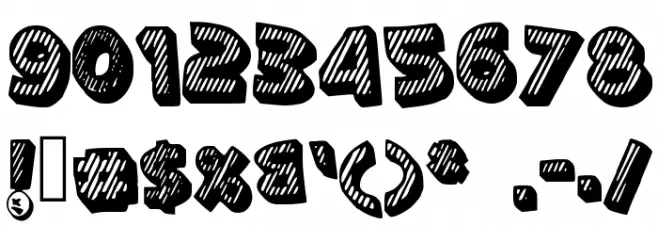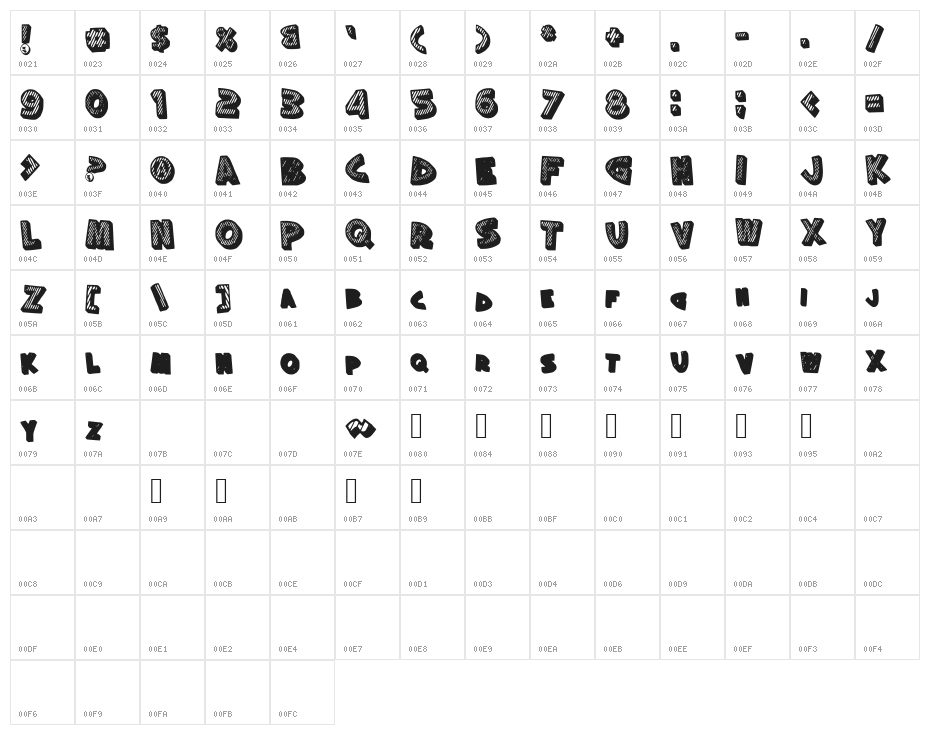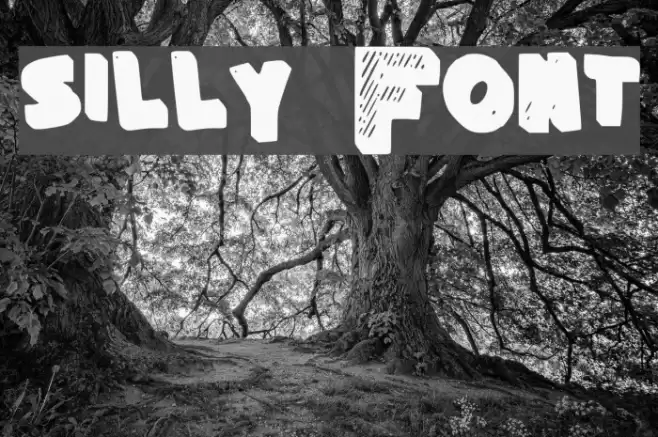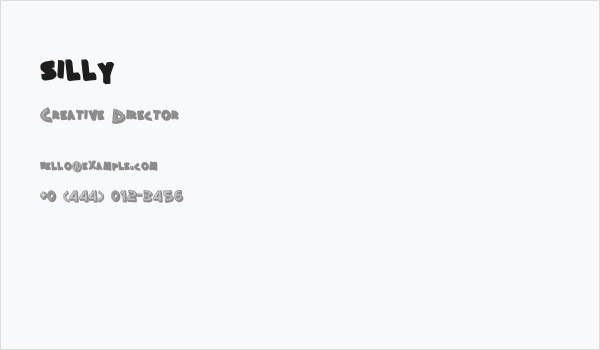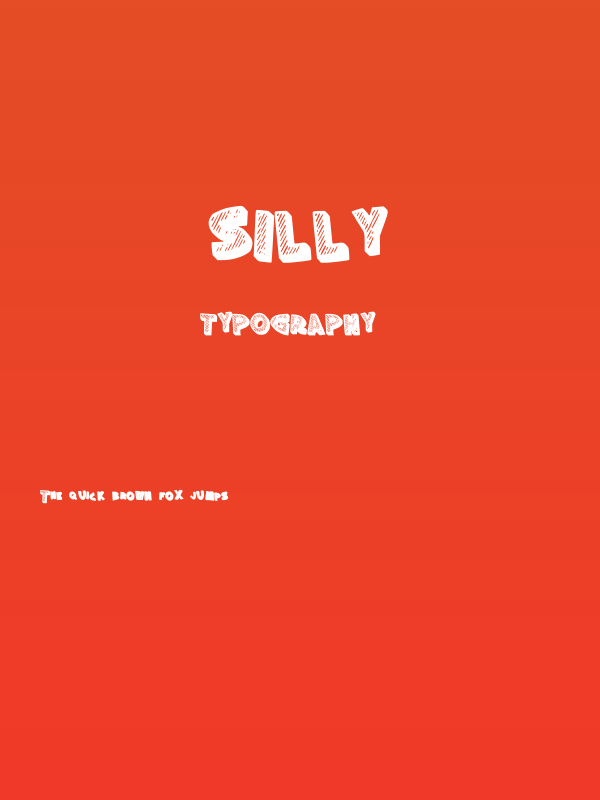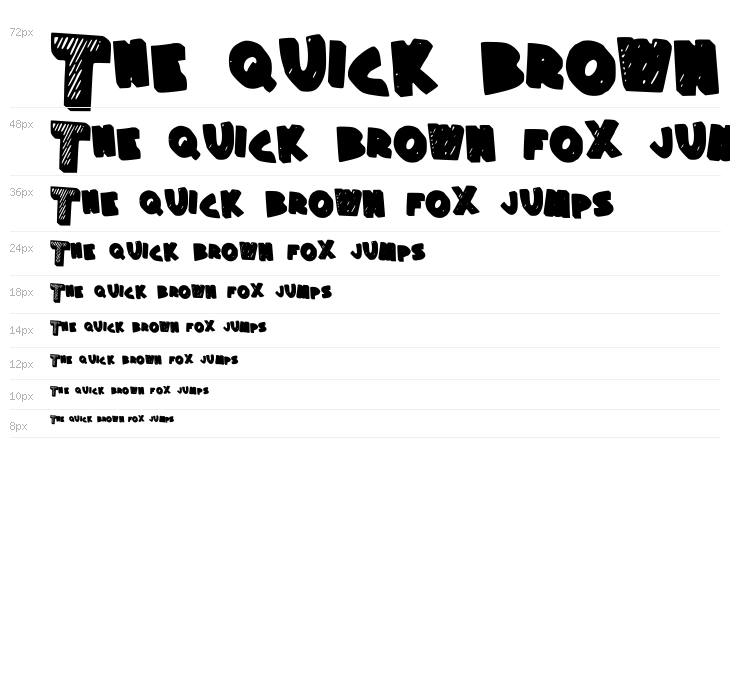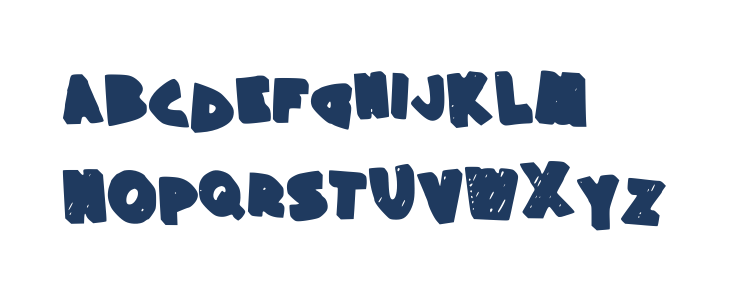
silly Font
silly Description
This playful and bold font features a hand-drawn, cartoonish style with thick, irregular strokes and a whimsical appearance. The characters are filled with a textured pattern that adds depth and a sense of fun. The uppercase and lowercase letters maintain a consistent, chunky form, while the numbers and special characters follow the same lively design. This font exudes a sense of creativity and spontaneity, making it ideal for projects that require a lighthearted and informal touch.
| Overall Style | Playful, Cartoonish, Hand-drawn |
| Use Case | Headlines, Logos, Posters, Invitations |
| Proposed Projects | Perfect for children's books, comic strips, playful branding, party invitations, and any project needing a fun, informal vibe. |